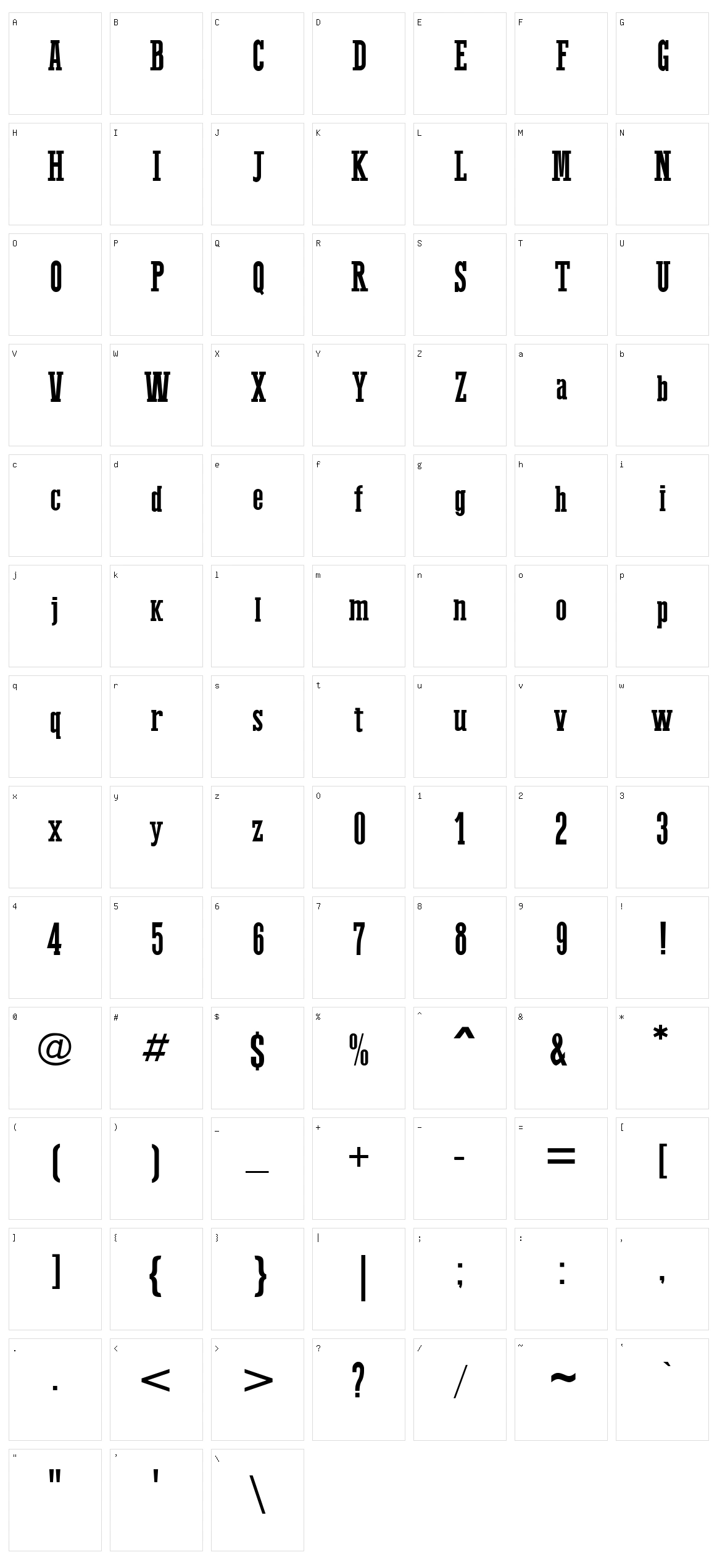
The free font Western Bang Bang Clean is carefully designed by Galdino Otten Fonts, showcasing a thoughtful balance of creativity and usability and falls under the Western font style. When you download the ZIP file, it contains only 391.77 KB of font files, making it lightweight and quick to download. Please review the license details below to understand permitted usage and distribution rights. If license information is not available, we recommend using this font for personal projects only or contacting the author directly for commercial usage permissions.